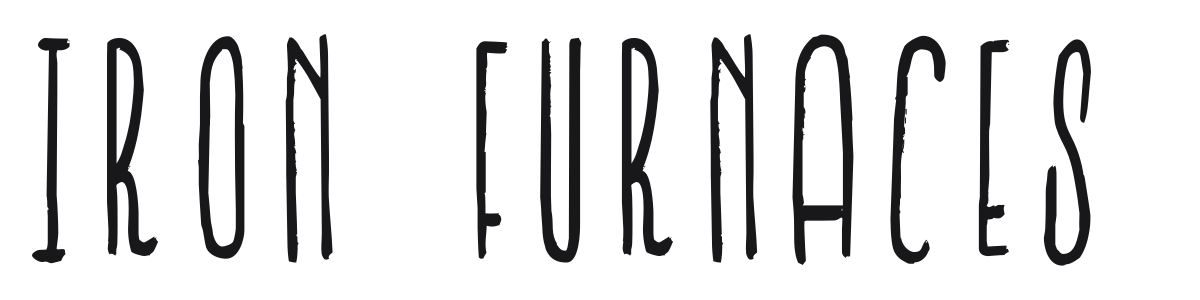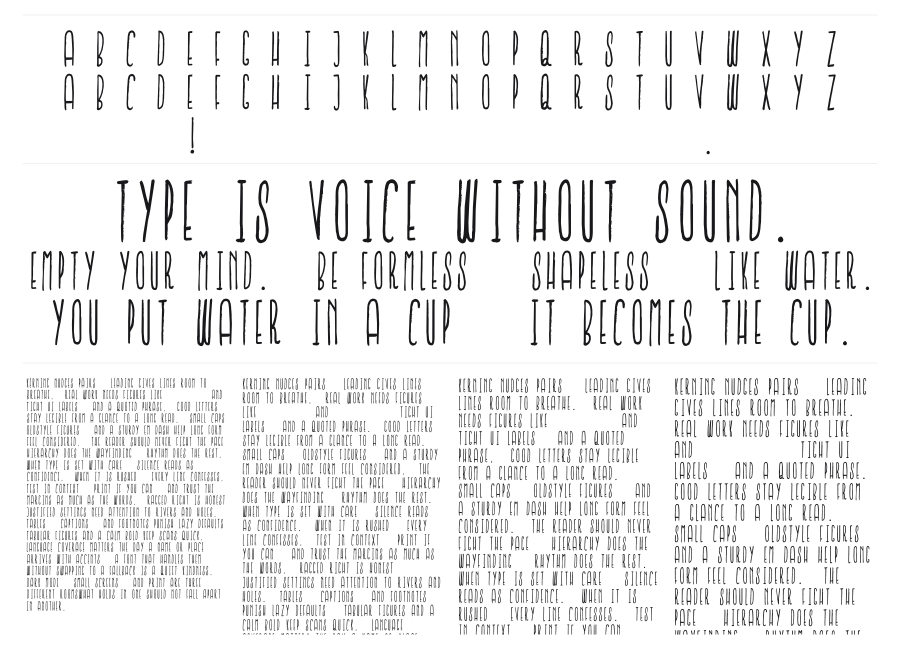
Iron Furnaces
Iron Furnaces is a tall condensed display face with a raw, hand-drawn texture that feels like ink dragged across rough paper. Every stroke carries that slightly uneven, weathered quality, giving it an artisan grit that smooth typefaces can't fake. Strong at large sizes for posters, labels, and anything that needs a handmade industrial edge.